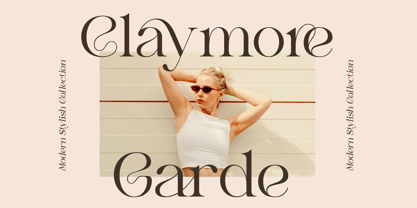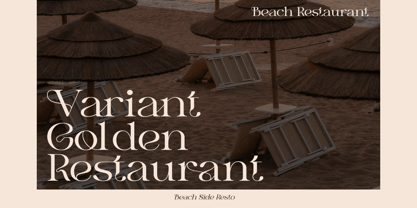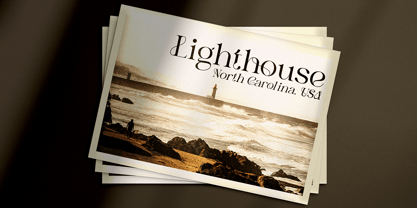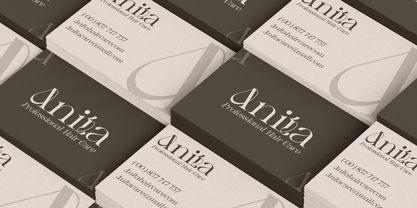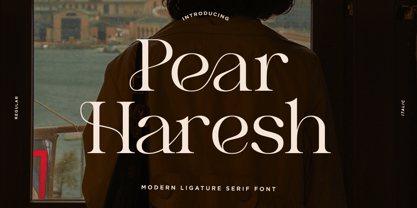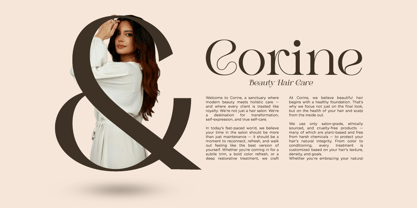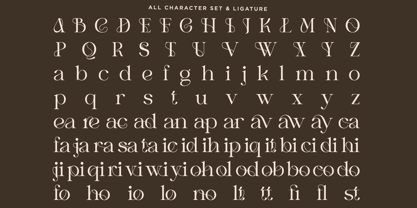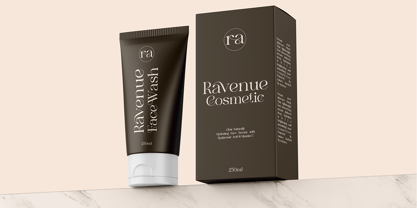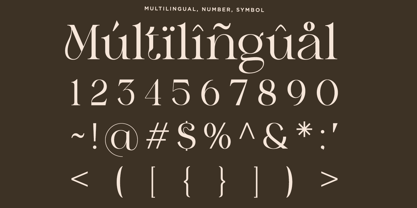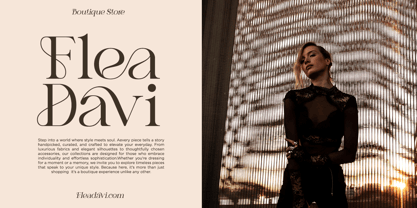
Pear Haresh
The Pear Haresh Font Family was designed by Yogiswhara Dio Prakoso Riadi and published by RagamKata. Pear Haresh contains 2 styles and family package options. More about this family
Pear Haresh is a modern ligatures with stylish serif font that blends timeless elegance and contemporary twist. Designed for creatives who seek a luxurious, high-end feel in their branding, editorial designs, or digital content, Pear Haresh is the perfect choice for making a bold yet refined statement. Features : - Pear Haresh Regular - Pear Haresh Italic - Stylish Ligature - Multilingual Support - Uppercase, Lowercase, Number, Punctuation Thank you for visit us. Have a nice day !